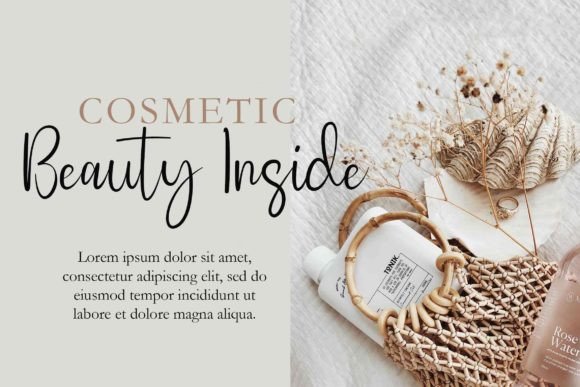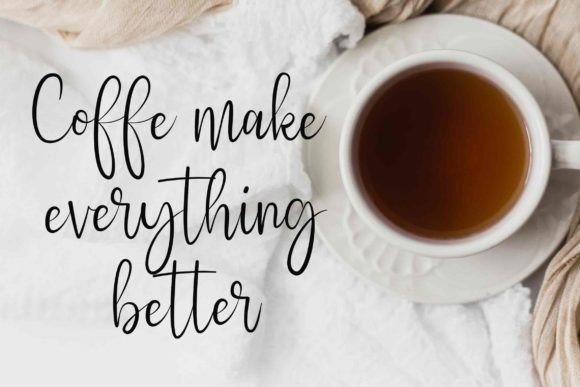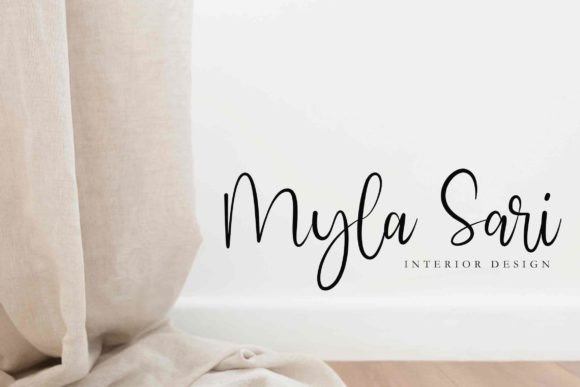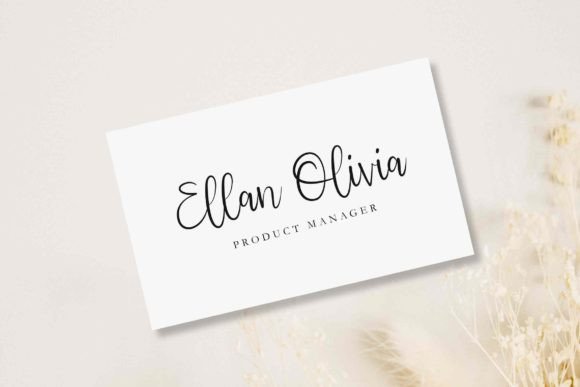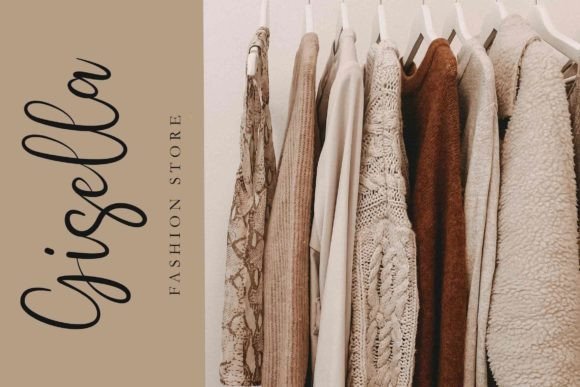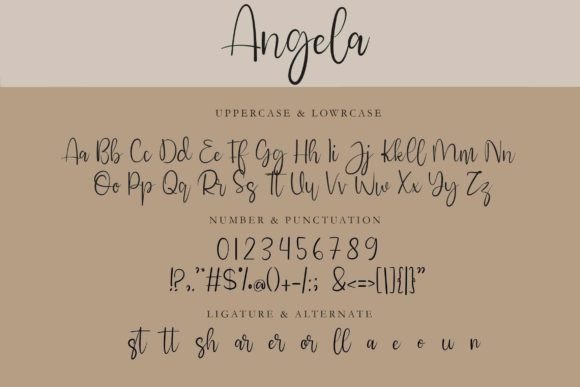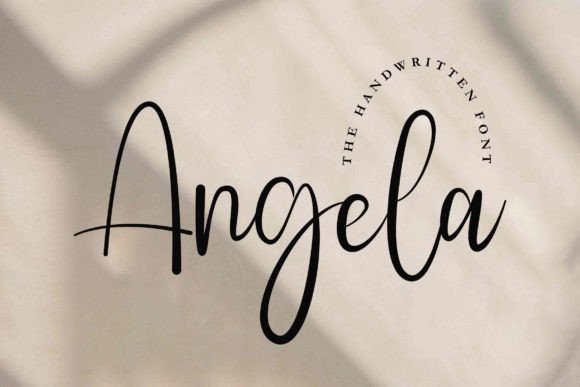
Discover the Elegance of Angela Font: A Beautiful Handwritten Typeface
Are you a designer or crafter looking for a unique and elegant font to elevate your creative projects? Look no further than Angela Font, a stunning handwritten typeface that is sure to capture your imagination. In this article, we’ll explore the features and benefits of Angela Font, and why it’s a must-have for anyone looking to add a touch of sophistication to their designs.
What is Angela Font?
Angela Font is a naturally flowing handwritten font that exists in the imagination, translated into real form to become an elegant and beautiful font. With its smooth, cursive lines and classic feel, Angela Font is perfect for a wide range of design projects, from wedding invitations and branding materials to blog posts and social media graphics.
Key Features of Angela Font
So, what makes Angela Font so special? Here are just a few of its key features:
- Complete Character Set: Angela Font includes both lowercase and uppercase letters, making it easy to create professional-looking text.
- Numbers and Symbols: The font also includes the most common numbers and symbols, as well as punctuation marks, so you can create complex designs with ease.
- Ligatures and Alternations: To add an extra touch of elegance, Angela Font includes ligatures and alternations that make your text even more beautiful.
Why Choose Angela Font?
With so many fonts available, why choose Angela Font? Here are just a few reasons why designers and crafters love this beautiful typeface:
- Elegant and Sophisticated: Angela Font has a timeless, elegant feel that’s perfect for creating sophisticated designs.
- Versatile: Whether you’re designing a wedding invitation or a social media graphic, Angela Font is versatile enough to work in a wide range of contexts.
- Easy to Read: Despite its elegant feel, Angela Font is easy to read, making it perfect for body text as well as headlines.
How to Use Angela Font in Your Designs
So, how can you use Angela Font in your designs? Here are a few ideas to get you started:
- Wedding Invitations: Angela Font is perfect for creating beautiful wedding invitations, save-the-dates, and thank-you cards.
- Branding Materials: Use Angela Font to create elegant branding materials, such as logos, business cards, and letterheads.
- Blog Posts and Social Media Graphics: Add a touch of elegance to your blog posts and social media graphics with Angela Font.
Tips for Getting the Most Out of Angela Font
To get the most out of Angela Font, here are a few tips to keep in mind:
- Experiment with Different Sizes: Angela Font looks great in a wide range of sizes, from large headlines to small body text.
- Play with Ligatures and Alternations: Don’t be afraid to experiment with ligatures and alternations to add an extra touch of elegance to your designs.
- Pair with Other Fonts: Angela Font pairs beautifully with other fonts, so don’t be afraid to experiment with different combinations.
Angela Font is a beautiful, elegant handwritten typeface that’s perfect for designers and crafters looking to add a touch of sophistication to their designs. With its smooth, cursive lines and classic feel, Angela Font is versatile enough to work in a wide range of contexts, from wedding invitations and branding materials to blog posts and social media graphics. Whether you’re a seasoned designer or just starting out, Angela Font is a must-have font that’s sure to elevate your creative projects.